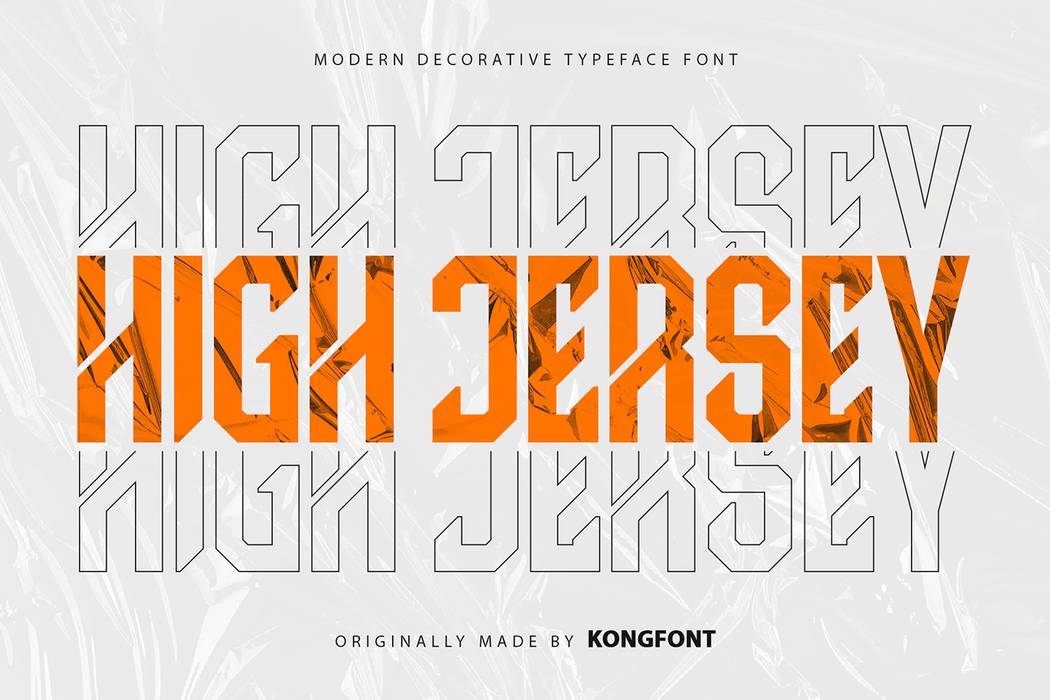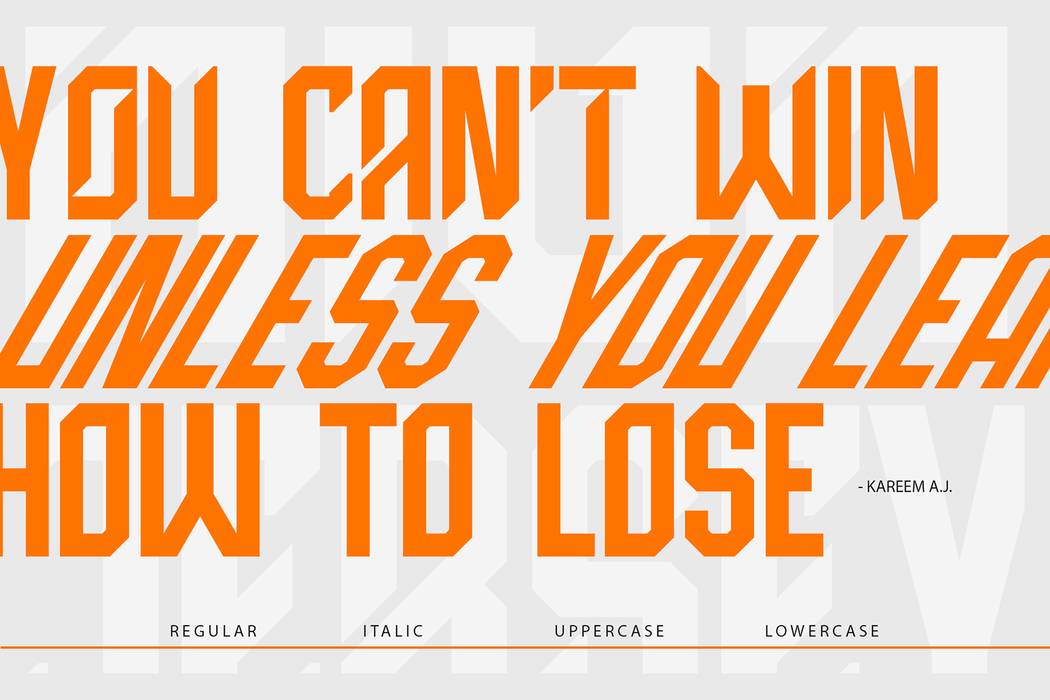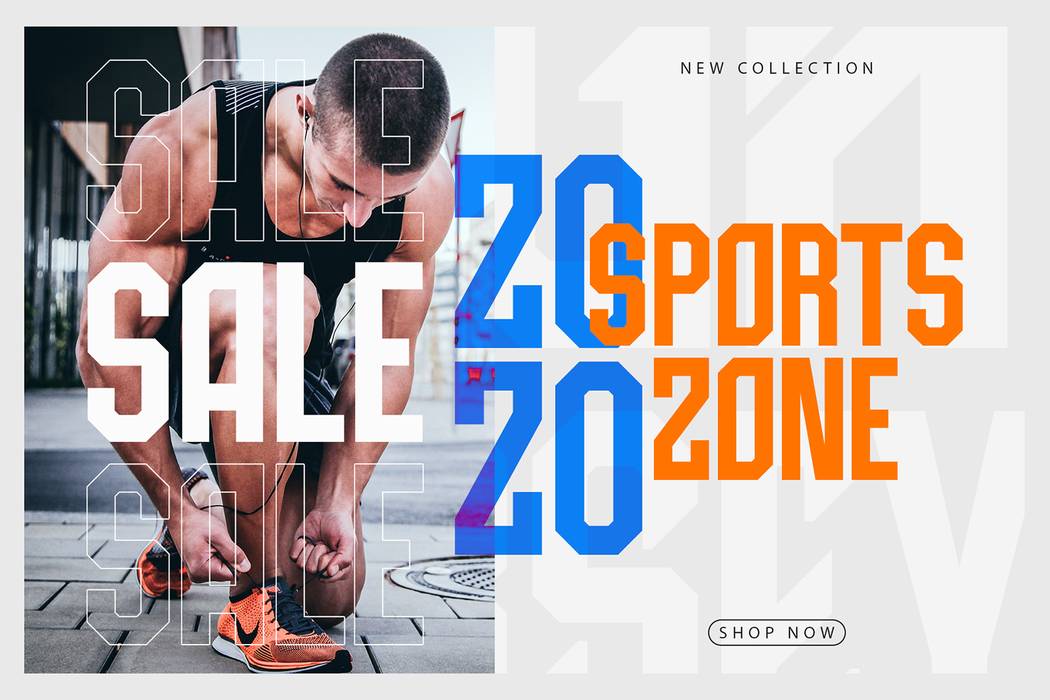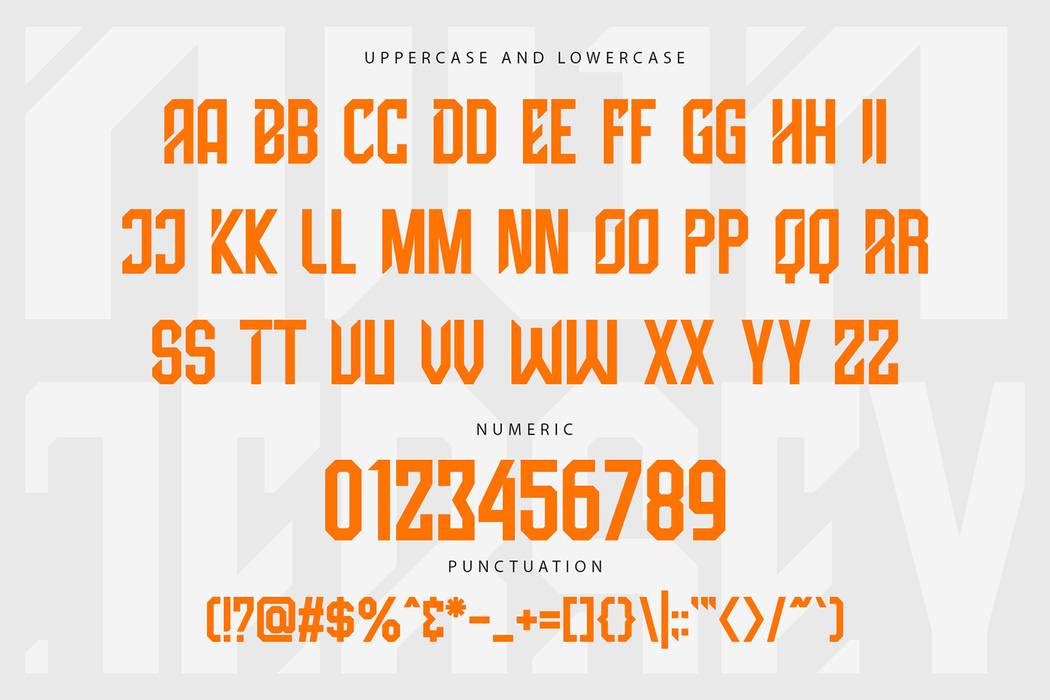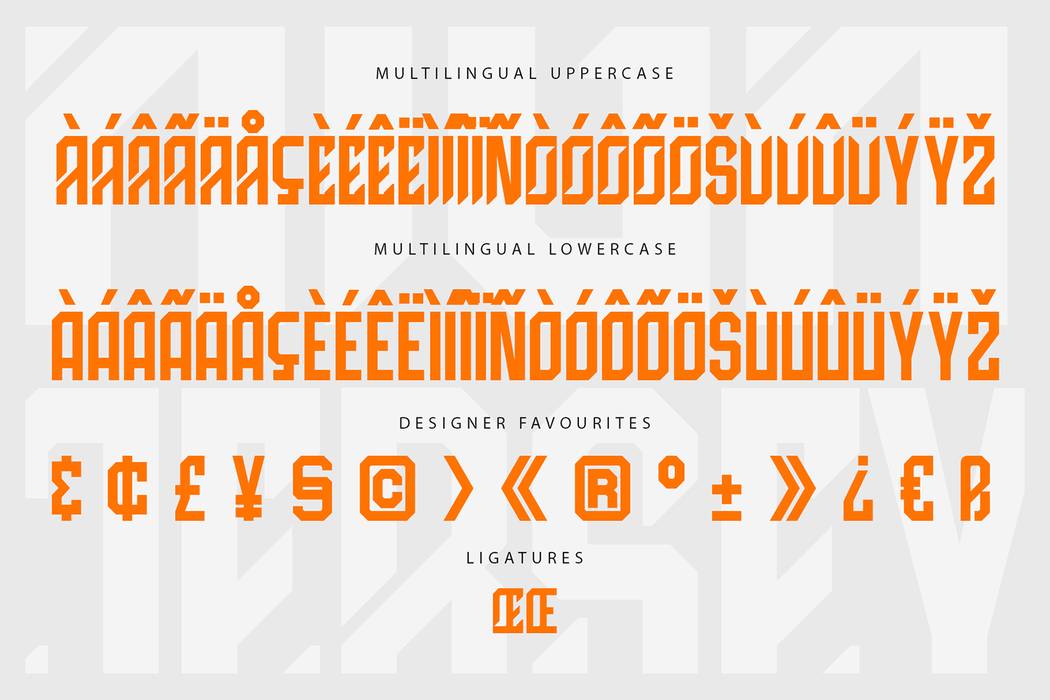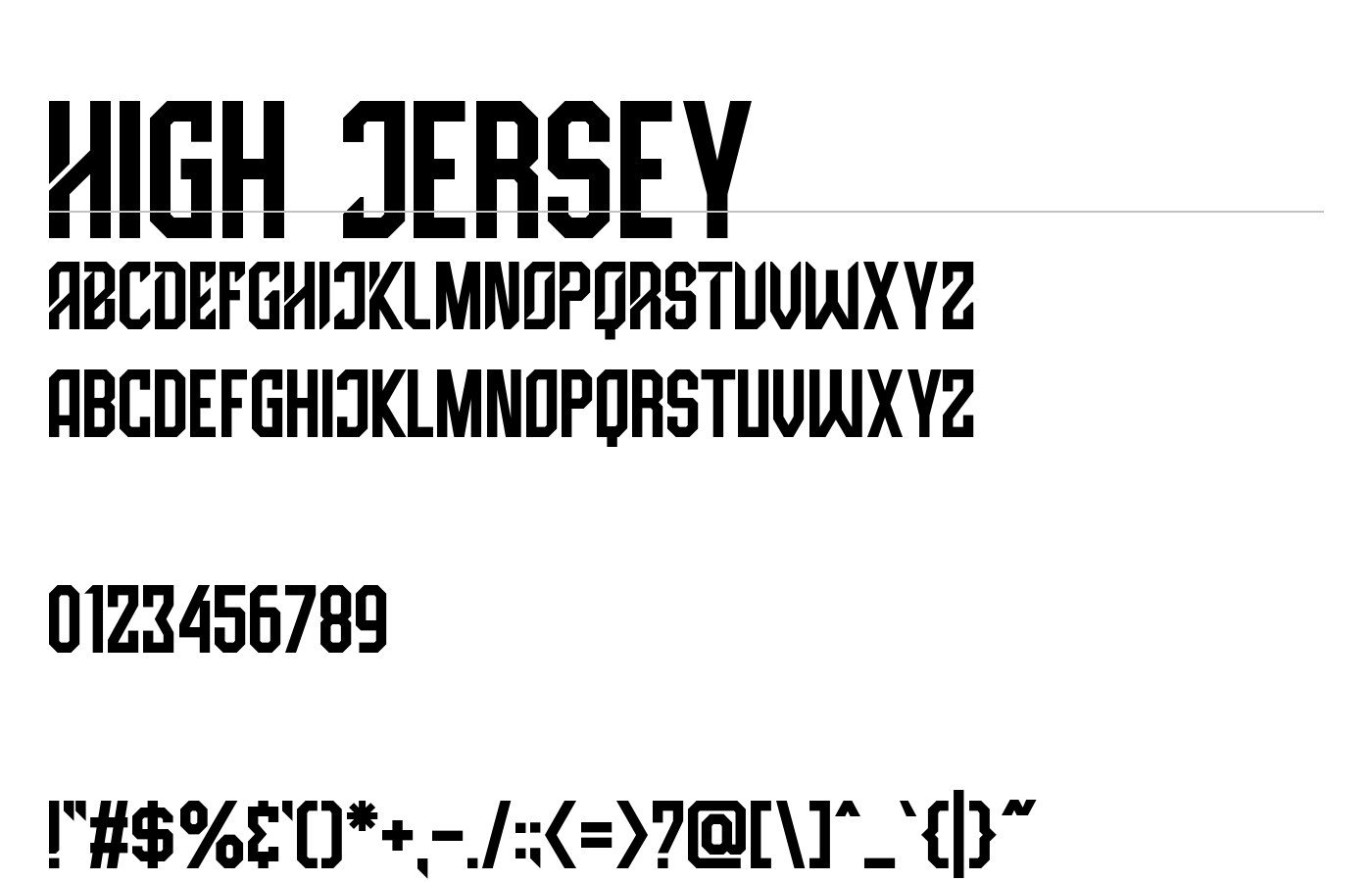
High Jersey is a bold, condensed sans serif font with a strong geometric structure and sharp, angular edges giving it a modern, industrial feel. Its tall x-height and uniform stroke width deliver a striking, impactful appearance perfect for headlines, logos, and branding that seek a dynamic and confident statement. This font works especially well in sports, fashion, or tech themes where a sleek, assertive style is desired.
High Jersey Font
About High Jersey Font